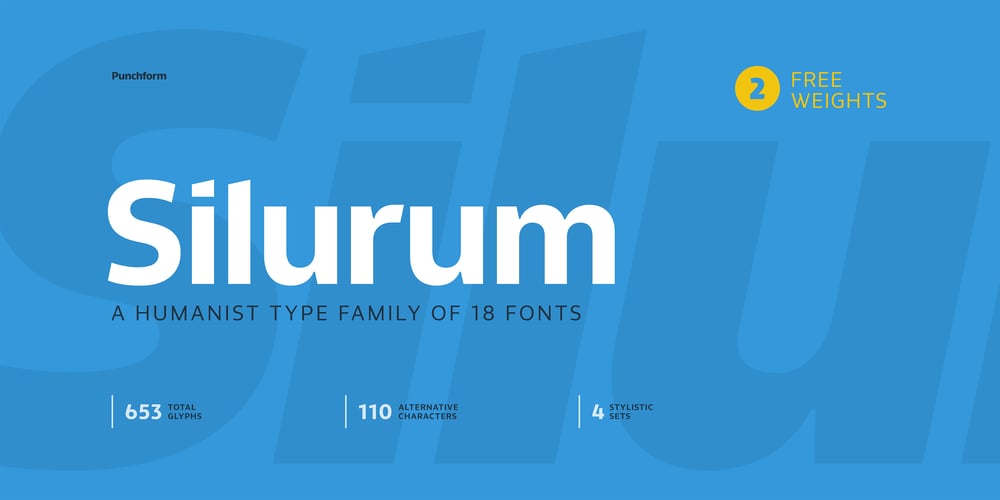
Silurum Font Family was designed by Mihai Sorin and published by Punchform. Silurum contains 22 styles and family package options. Features:• 653 glyphs in 18 fonts• 110 alternative glyphs• 4 stylistic sets• 15 OpenType featuresSilurum is a humanist sans-serif font designed by Mihai Sorin and published by Punchform in 2021. The family has 18 weights — 9 uprights and 9 italics — ranging from Thin to Black. Each font contains 653 glyphs and supports over 220 languages.Silurum allows graphic designers to create advanced typographical layouts by offering 110 alternative glyphs and 4 stylistic sets. It comes with 15 powerful Opentype features such as stylistic alternates, contextual alternates, standard ligatures, glyph composition/decomposition, localized forms, case-sensitive forms, ordinals, proportional figures, tabular figures, slashed zero, numerators, denominators, fractions, superscript, and subscript.The Light and ExtraBold weights are free for both personal and commercial use, so you can use them however and anywhere you want.